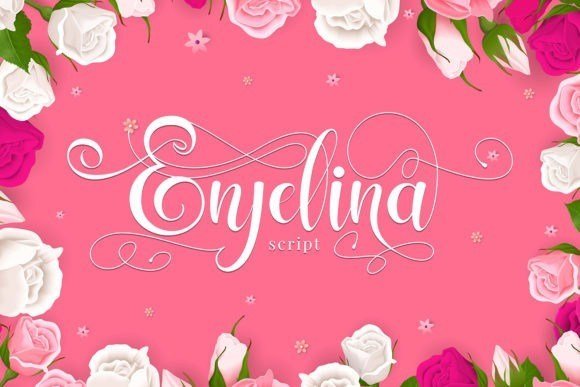
Enjelina Calligraphy Font
Try Enjelina Font, enjoy the richness of OpenType features and let the fun and elegant fun make you happy and increase your creativity! You can use this font very easily.
Enjelina is a classic letter, each letter has been carefully made to make your text look beautiful. This font is perfect for logos, badges, shirts, labels, clothing designs, etc.